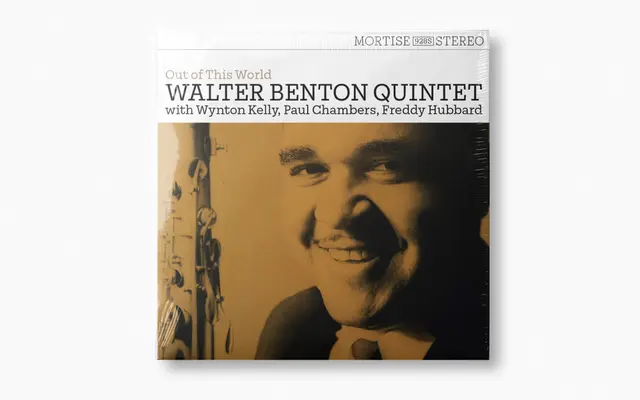
Mortise
Signal · Seán Mongey, Max Phillips
Mortise specimen from Signal
A six-weight slab serif with monoline strokes, open counters and subtly curved vertical serifs, designed by Seán Mongey and Max Phillips for Signal.
Built around a generous x-height, wide proportions and long, slightly curved vertical serifs, Mortise manages to be both practical and characterful across its range. The lighter weights sit neatly on the page while the X-Bold grows exuberantly blocky, giving the family a considerable expressive span. Signal's first collaboration with outside designers, it arrives in twelve styles covering six weights from X-Light to X-Bold, each with a matching italic.
A slab serif with monoline strokes, generous x-height and long slightly curved vertical serifs, placing it in the upright slab tradition rather than Clarendon or Egyptian sub-styles.